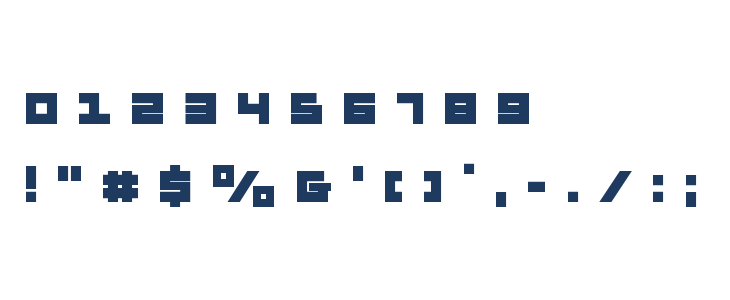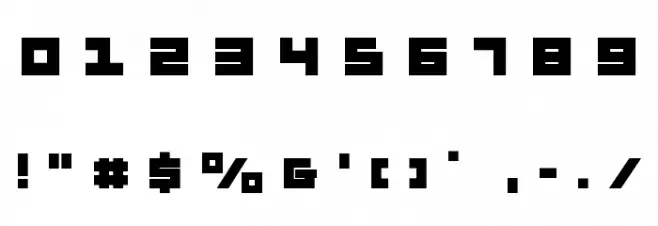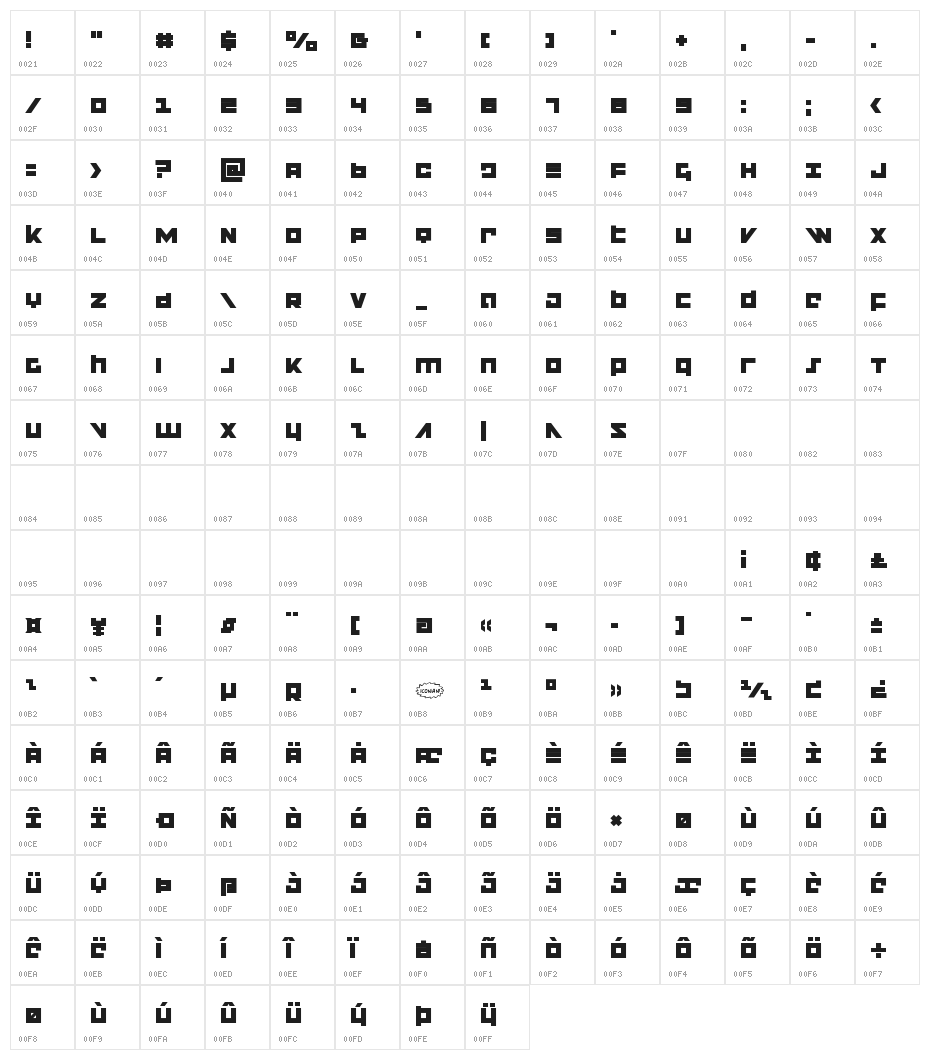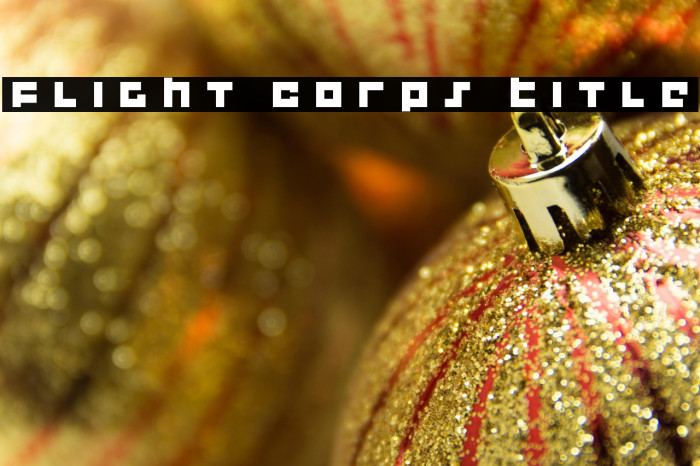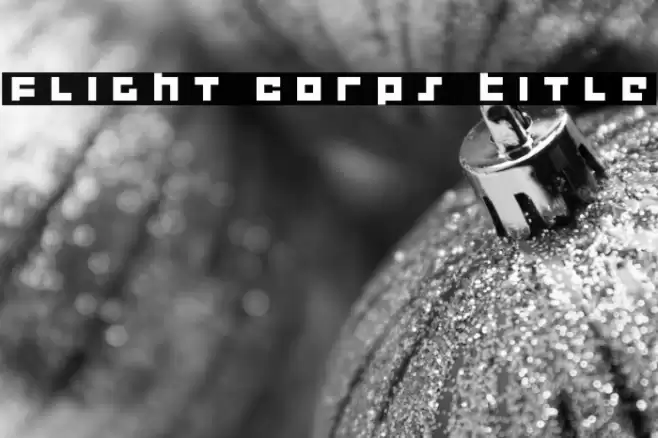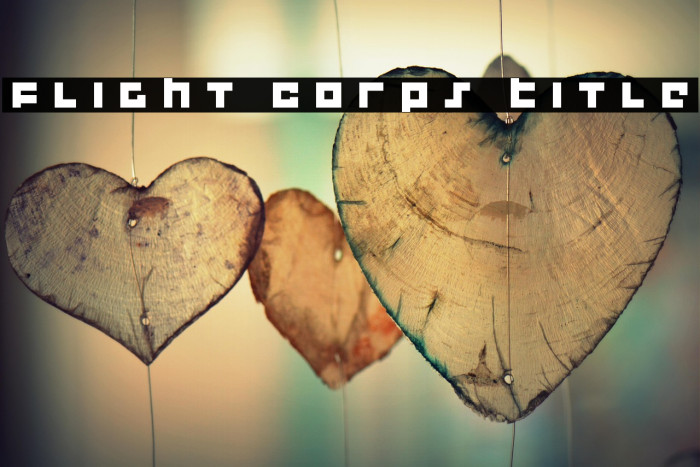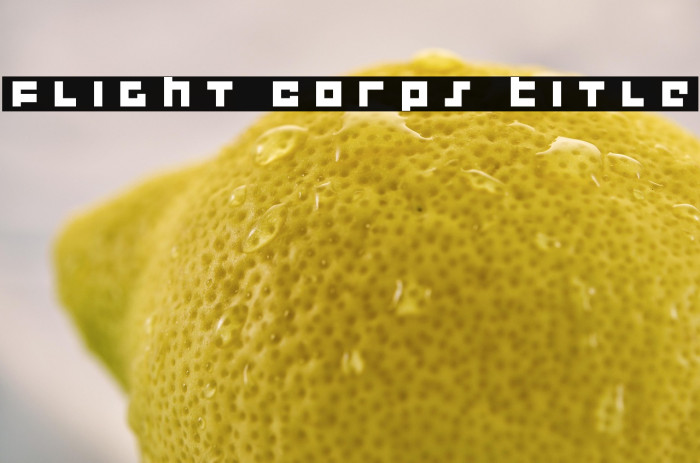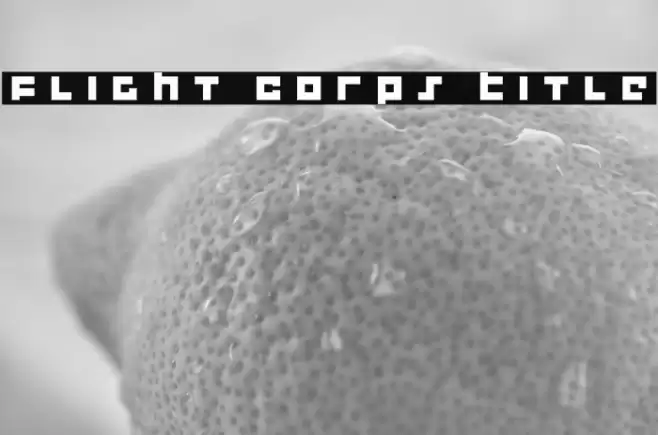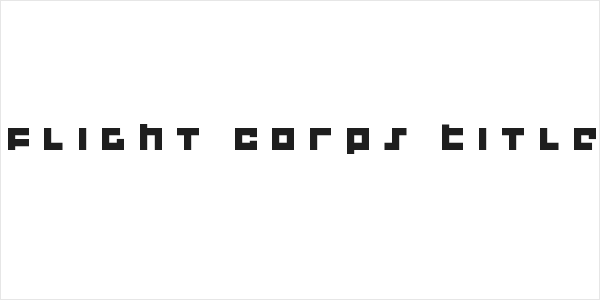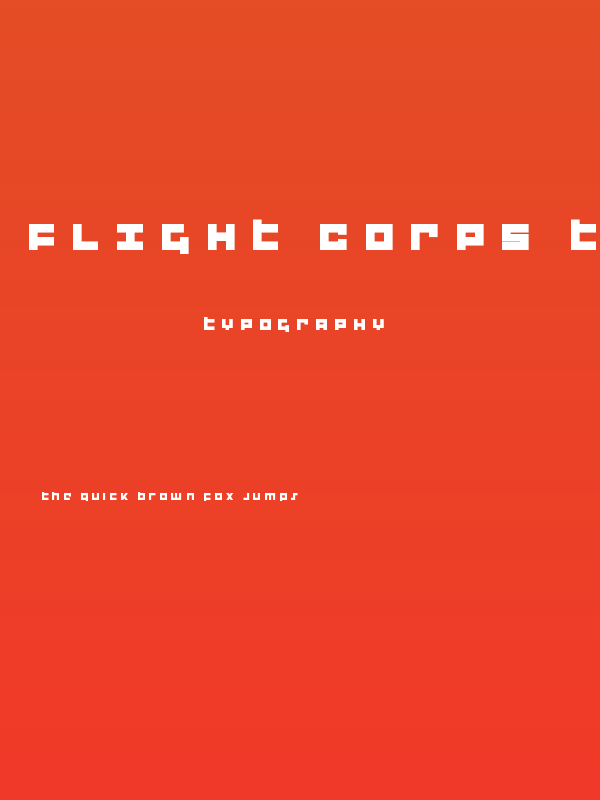
Flight Corps Title Font
Flight Corps Title Description
This font features a bold, geometric design with a futuristic and digital aesthetic. Each character is constructed with sharp angles and straight lines, creating a blocky and robust appearance. The uppercase and lowercase letters maintain a consistent style, with minimal differentiation in size and shape. Numbers and special characters follow the same angular and solid design, ensuring uniformity across all glyphs. The font's heavy weight and strong presence make it ideal for attention-grabbing applications.